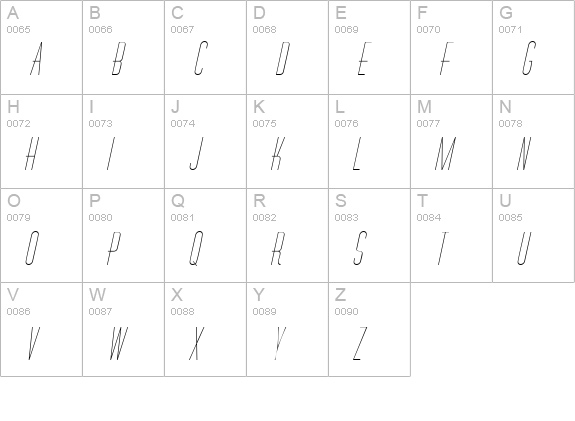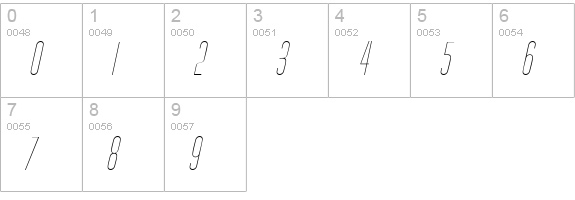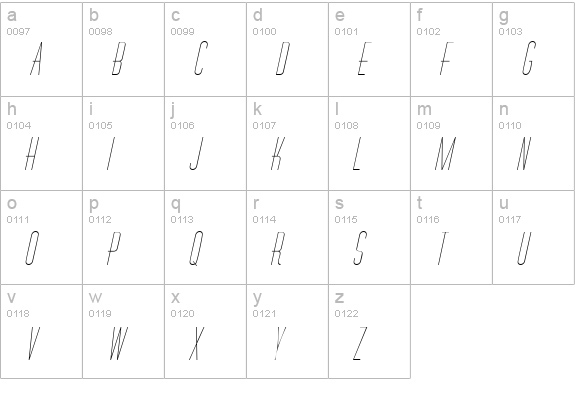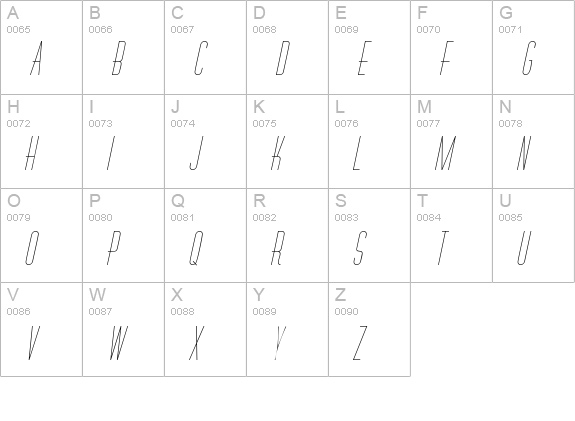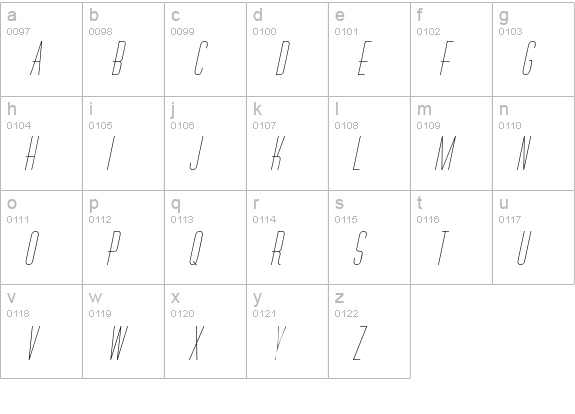
RoselleCapsSSK Italic is a distinctive, italic variant in the RoselleCapsSSK typeface family \xE2\x80\x94 well suited to design and typography projects.
RoselleCapsSSK Italic font is a stylish and elegant typeface that exudes sophistication and charm. The slanted, italicized design adds a touch of flair to any project, making it perfect for creating eye-catching headings or highlighting important text. The graceful curves and unique letterforms of RoselleCapsSSK Italic font make it a versatile choice for a variety of design applications. Best of all, RoselleCapsSSK Italic font is available for free download at FontsMarket.com. This means you can easily access this beautiful font and use it in your personal or commercial projects without any cost. Embrace the beauty and creativity of RoselleCapsSSK Italic font in your designs today and make a lasting impression with its elegant and sophisticated style.